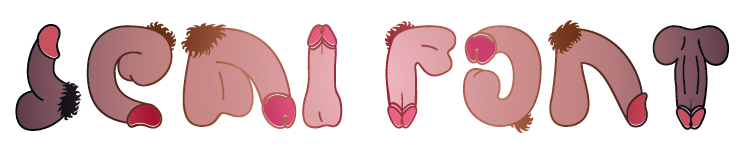
This font, following the rule of two bowls and a stem per glyph, will give you more than a semi. The zip archive includes three font files: one for the outline, which can be used by itself, and two for changing fill colors which can be applied by layering in a graphic application. Tags: cock, dick, penis. |